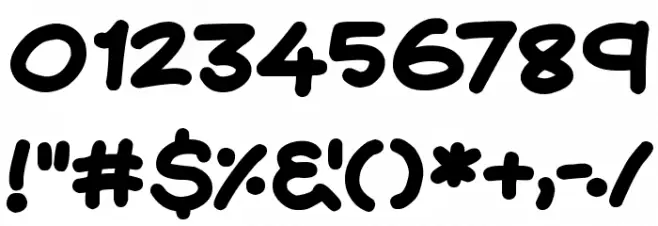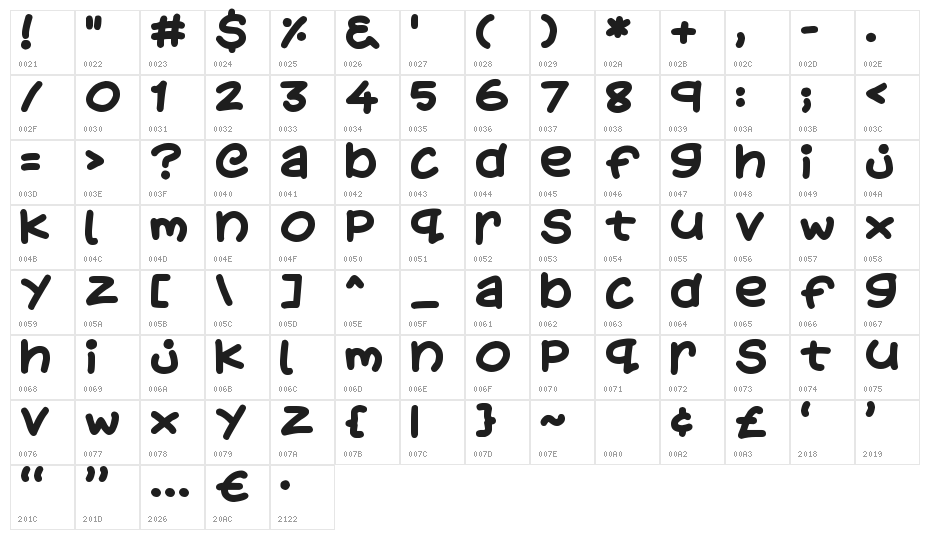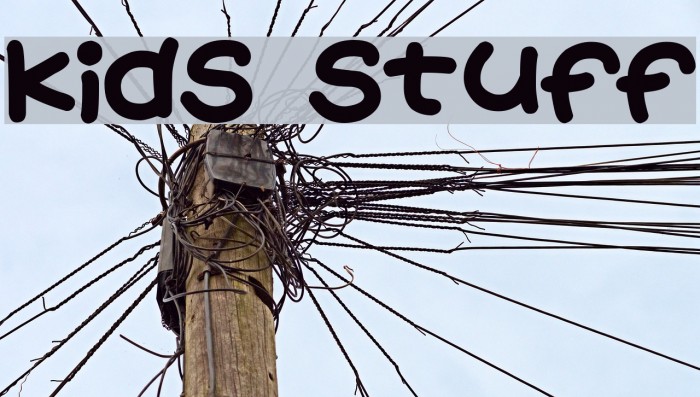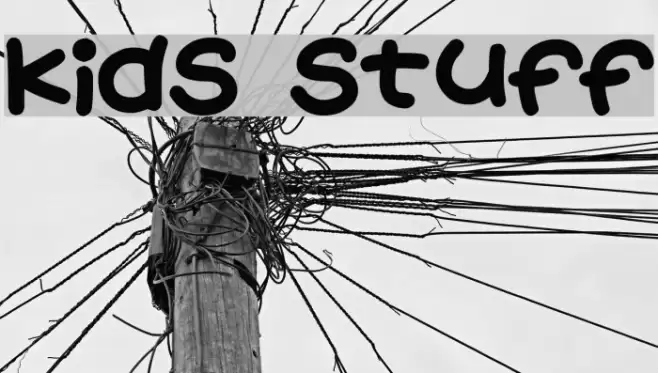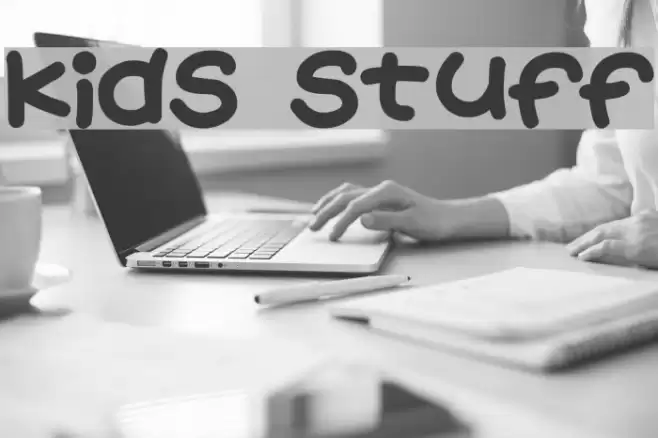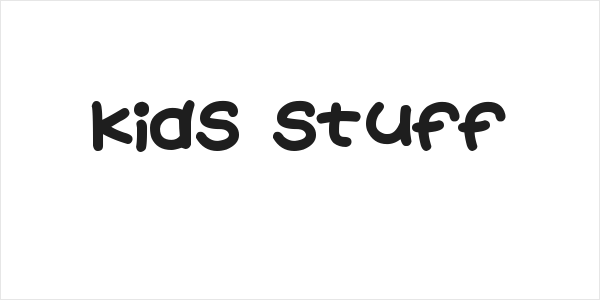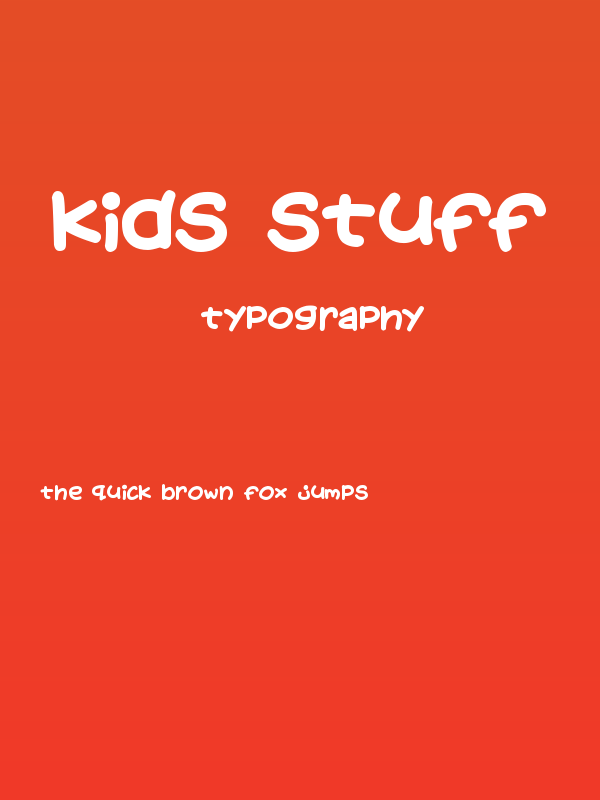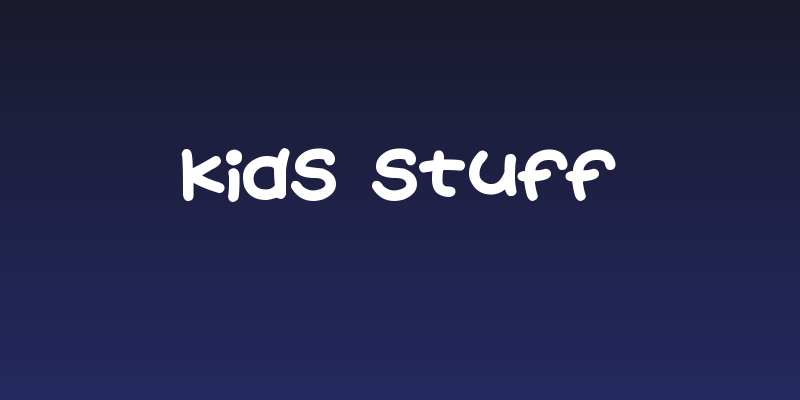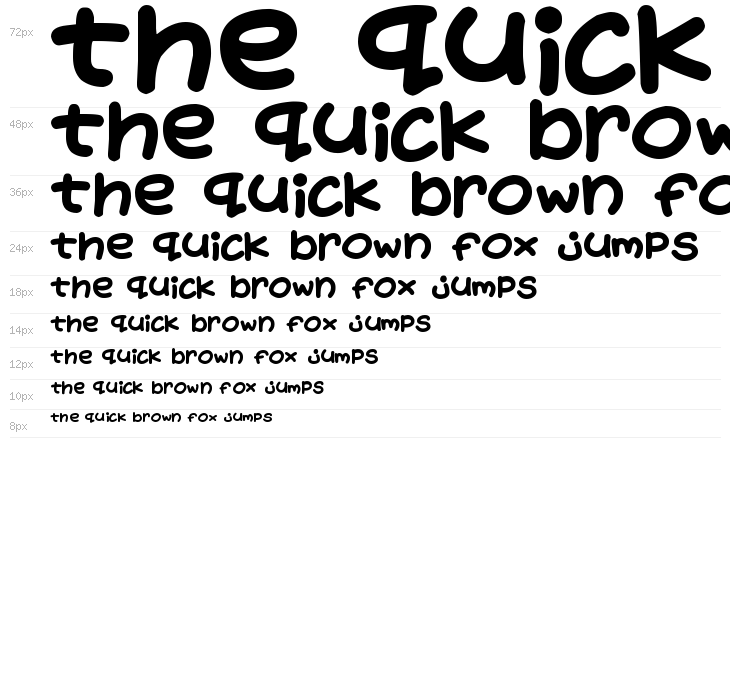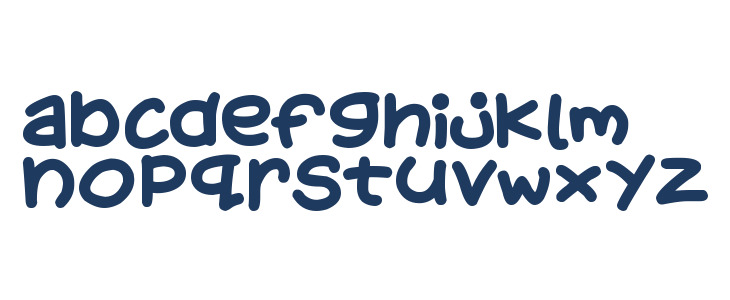
Kids Stuff Font
Kids Stuff Description
This playful and whimsical font features rounded, bubbly characters that evoke a sense of fun and creativity. The letters are bold with a slightly uneven baseline, adding to the casual and informal feel. The font's thick strokes and rounded edges make it highly legible, even at smaller sizes. It includes a full set of uppercase and lowercase letters, numbers, and a variety of special characters, making it versatile for different uses. The overall style is reminiscent of handwriting, with a friendly and approachable appearance that is perfect for projects aimed at children or those wanting to convey a sense of joy and playfulness.
Overall StylePlayful
Use CaseHeadlines, Logos, Children's materials
Proposed ProjectsIdeal for children's books, educational materials, playful branding, and party invitations.